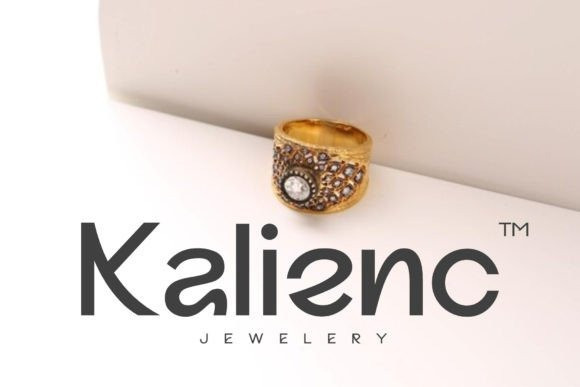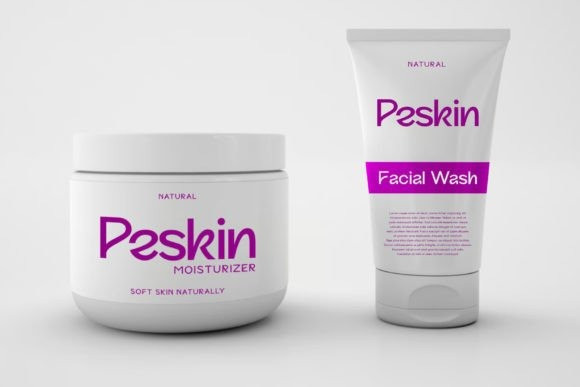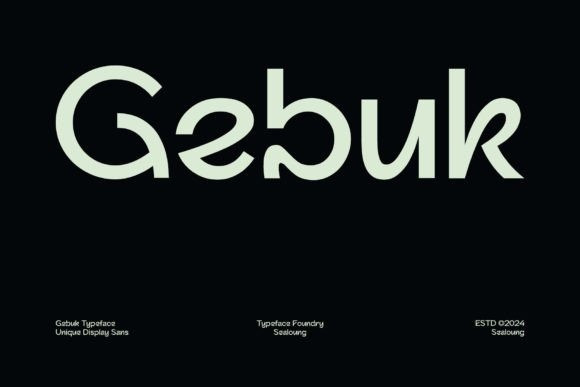
Gebuk Font
Gebuk Font is a bold and distinctive display sans font, designed to make a statement. With its clean lines and strong character, Gebuk is perfect for adding a modern and unique touch to your design projects. Whether you’re working on posters, branding, packaging, or digital media, this font delivers a striking visual impact.
Its solid yet minimalist letterforms provide a powerful yet readable presence, making it an ideal choice for attention-grabbing headlines, logos, and advertisements.